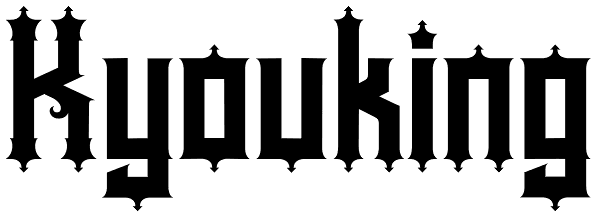
Kyouking
The Kyouking design is basically the structural century blend with a modern feel approach to make it a flexible and epic, effective font for the creation of ambitious poster headlines, Book covers, logos and so on.